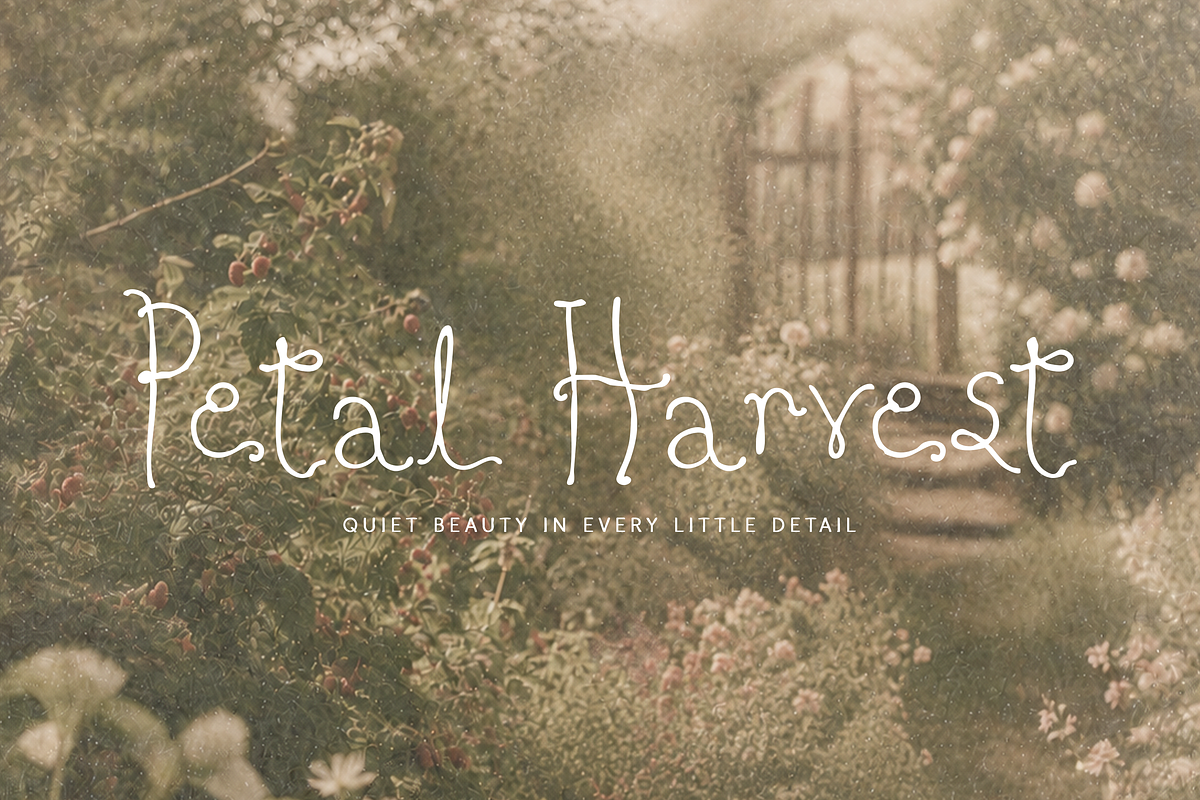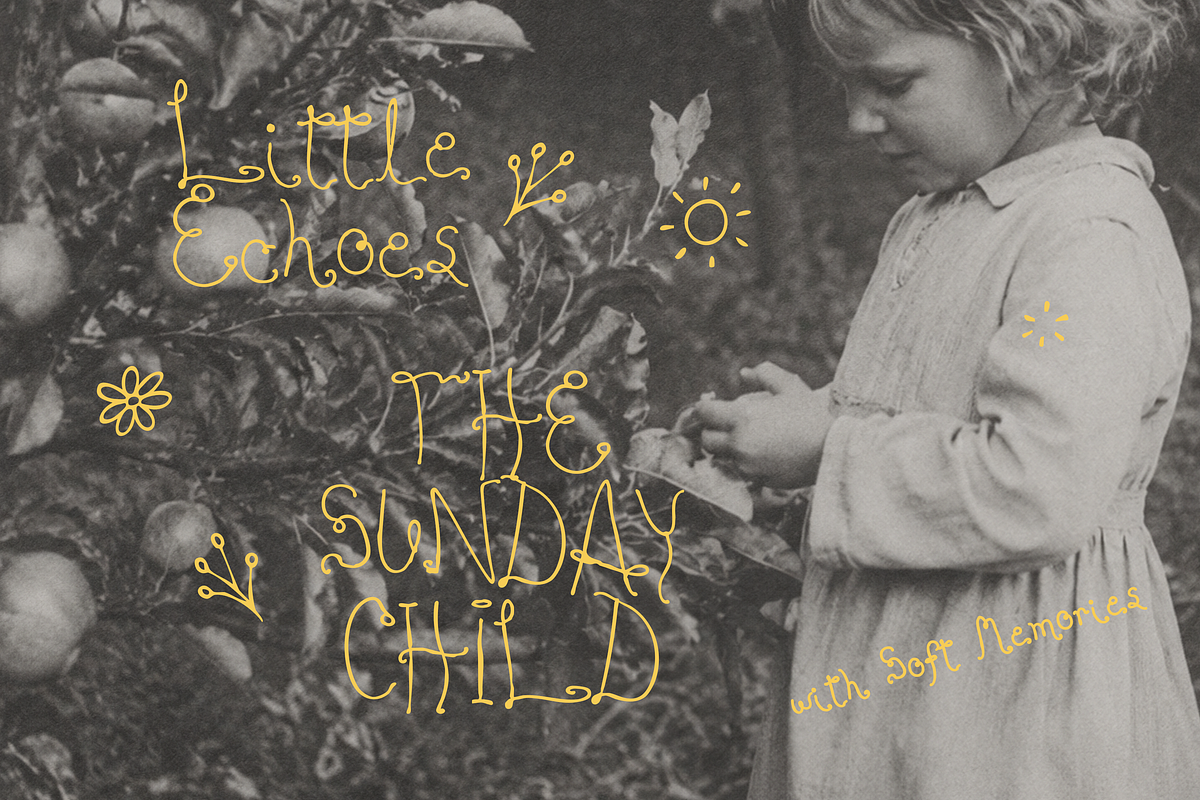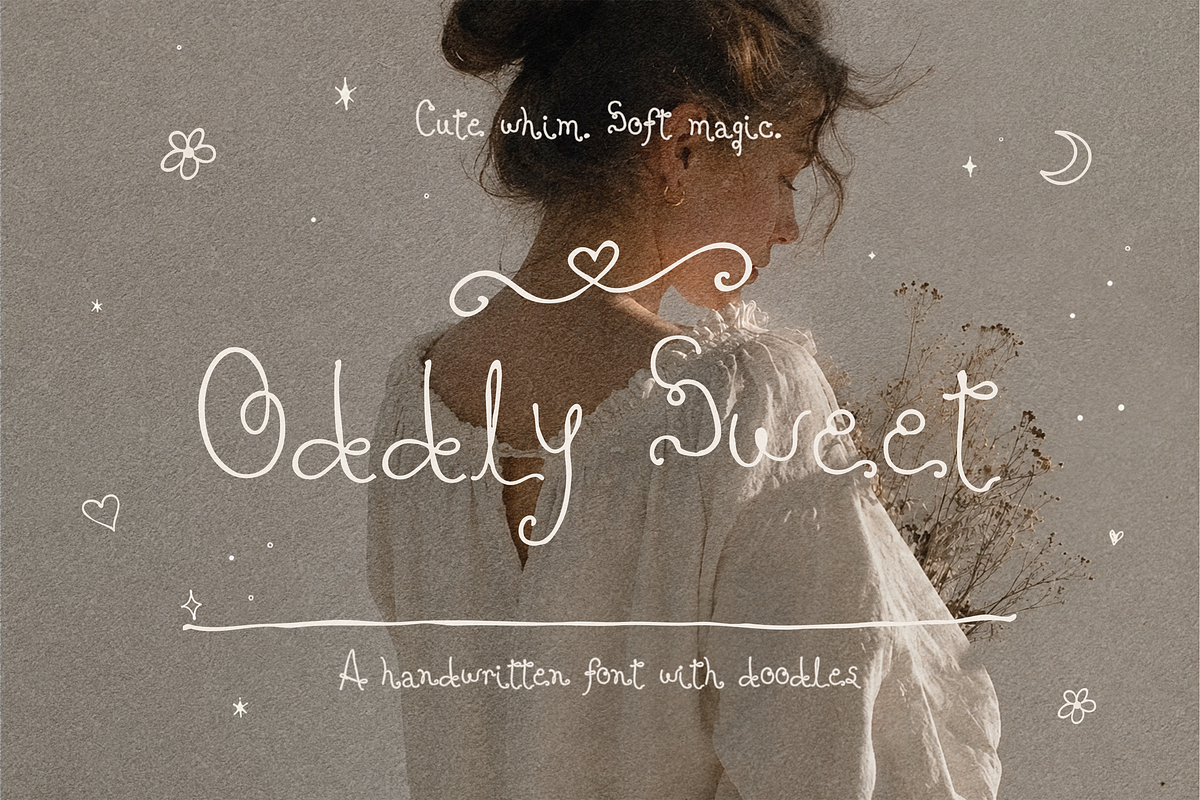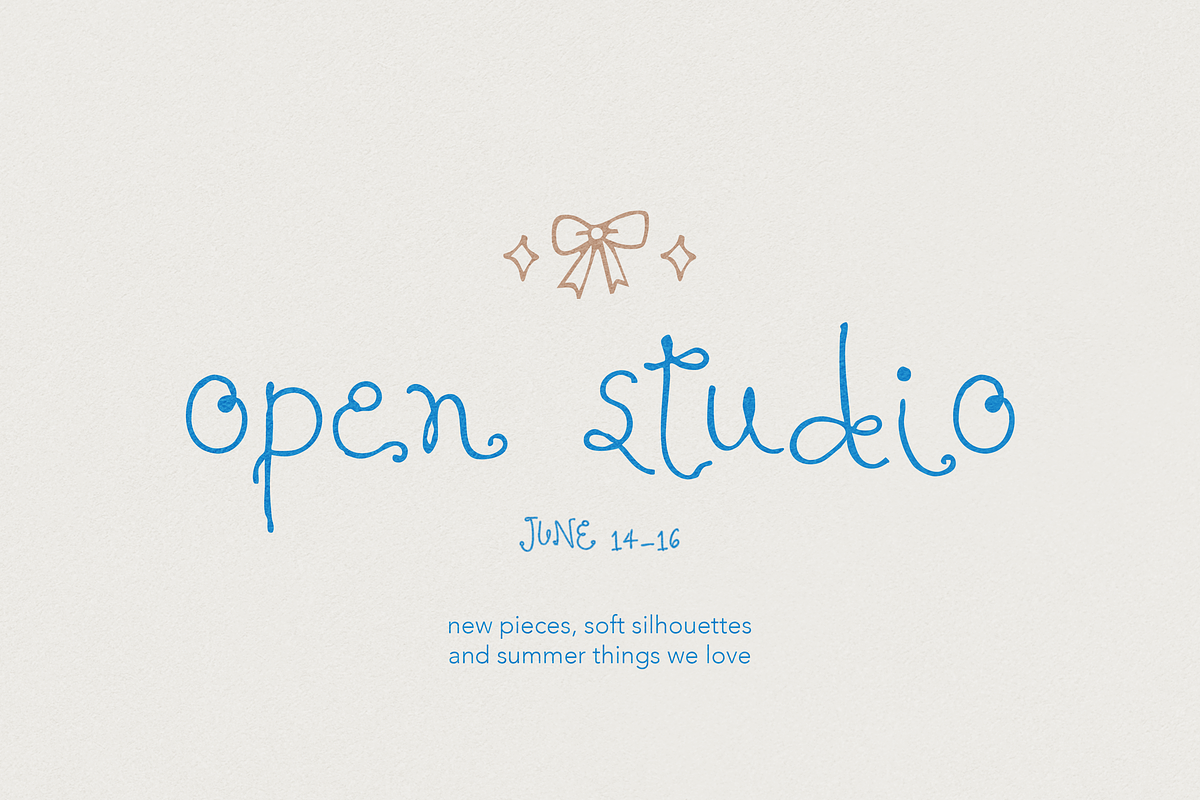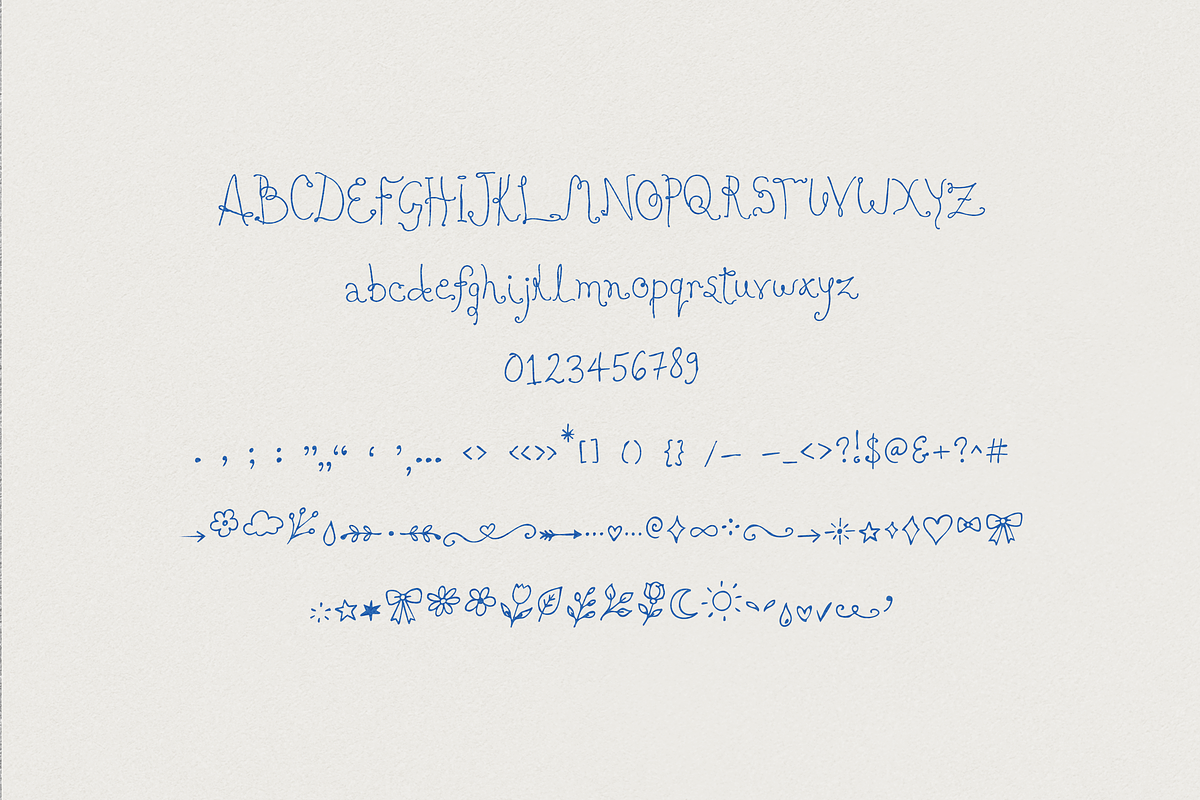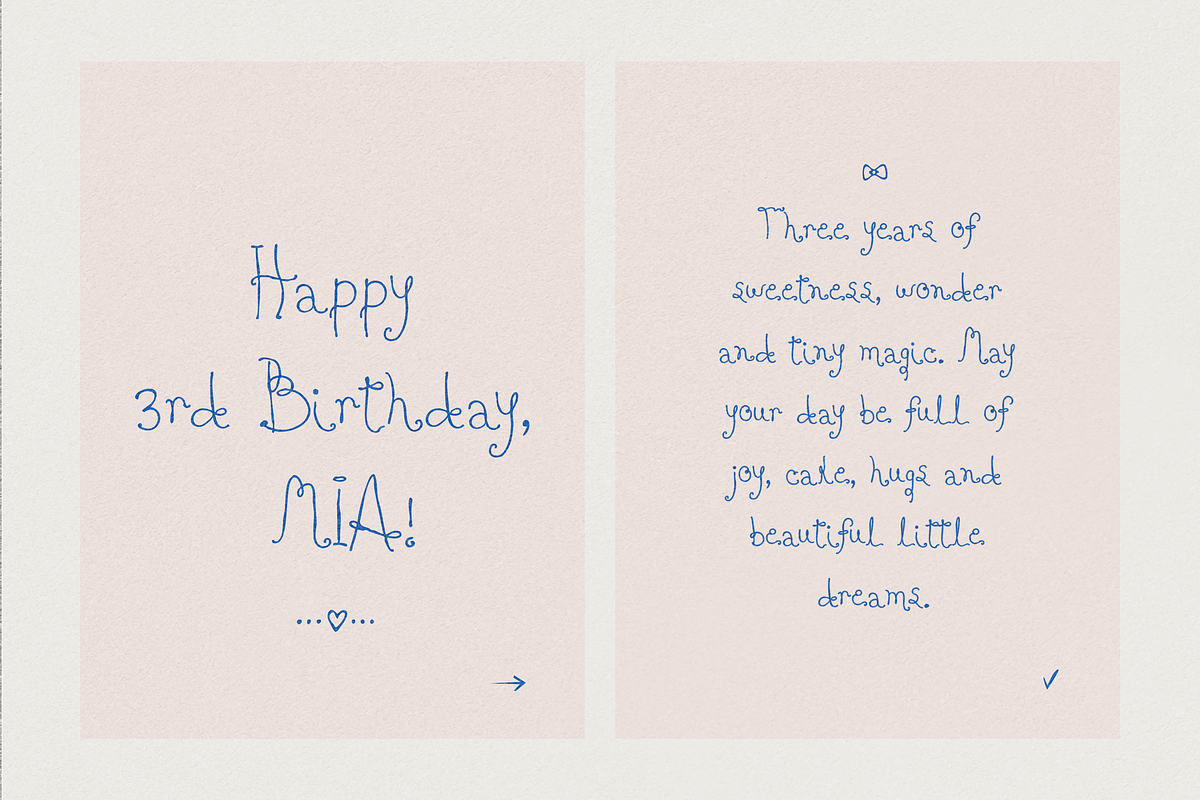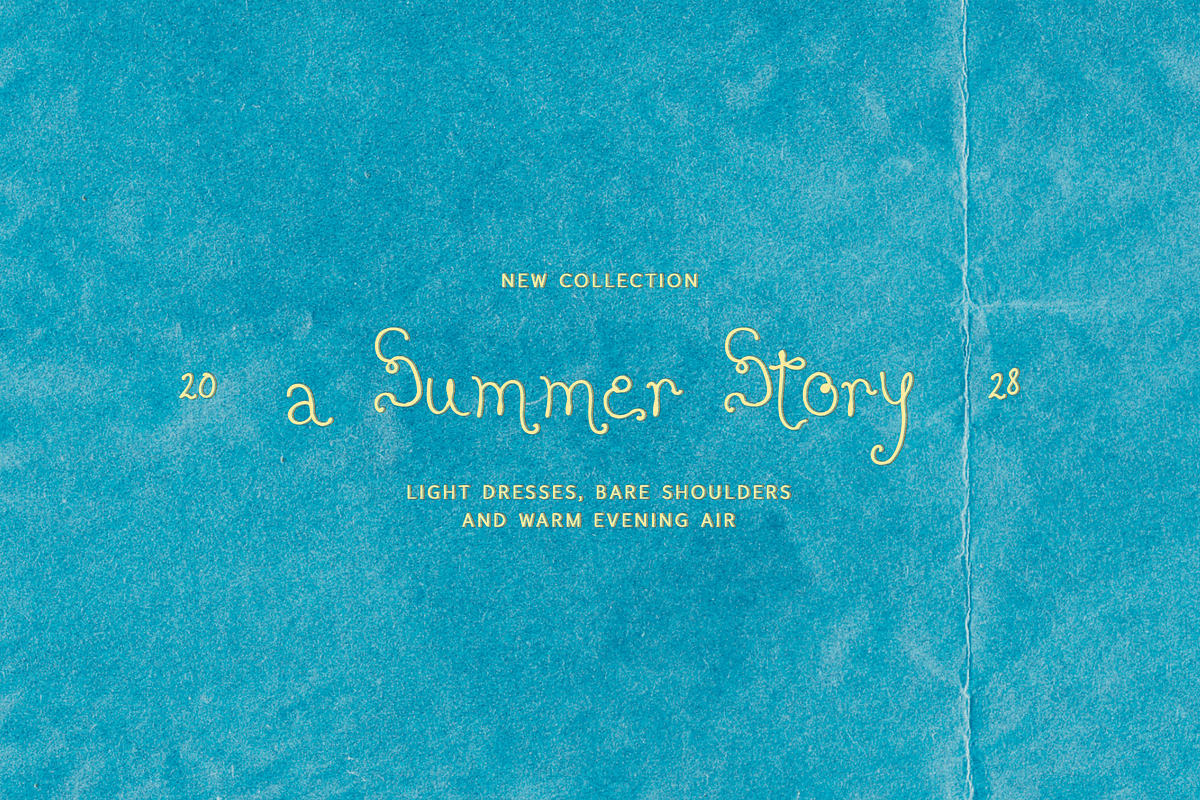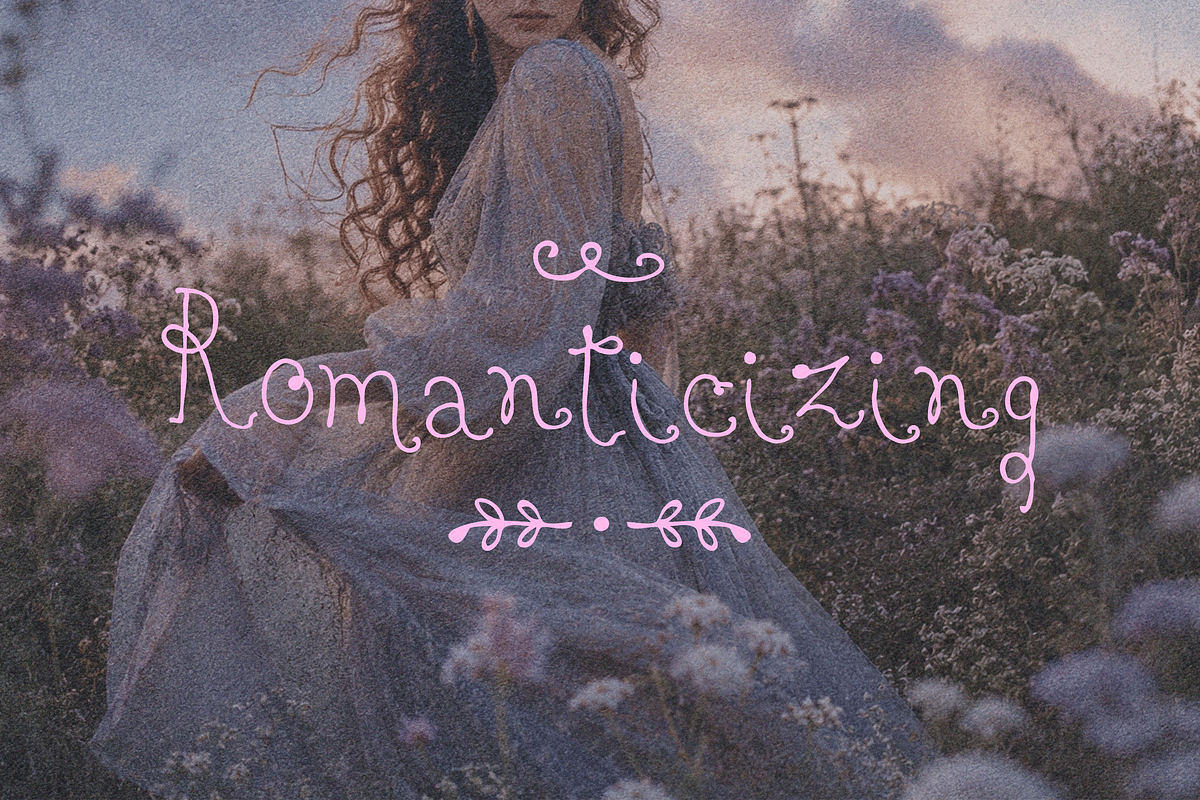
Oddly Sweet Whimsical Font
Oddly Sweet is a whimsical handwritten font with cute, quirky letterforms and soft magical doodles.
This font has an imperfect hand-drawn look, playful curves, delicate symbols and a romantic handmade feeling. It is perfect for greeting cards, invitations, quotes, feminine branding, packaging, social media graphics, stickers, posters, apparel designs, logos and dreamy creative projects.
The style feels cute, odd, tender, romantic and softly magical — perfect for designs that need a personal handmade touch.